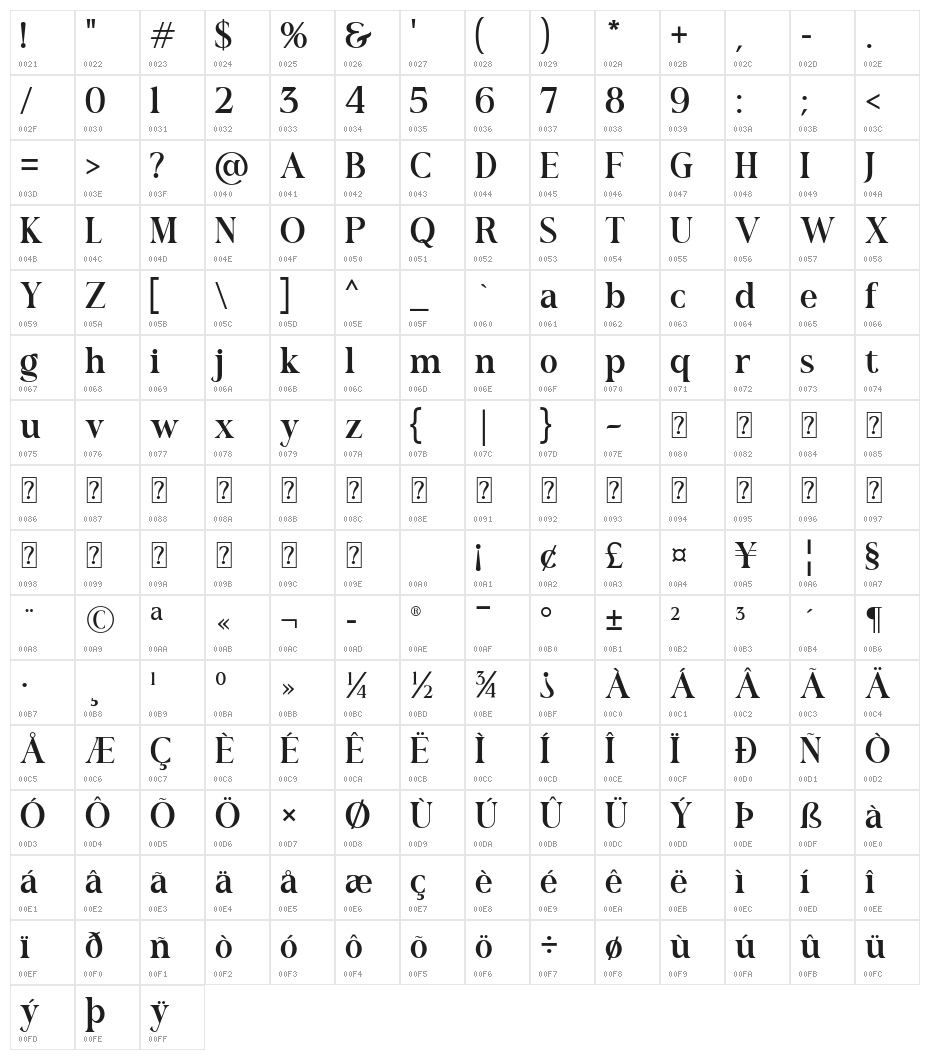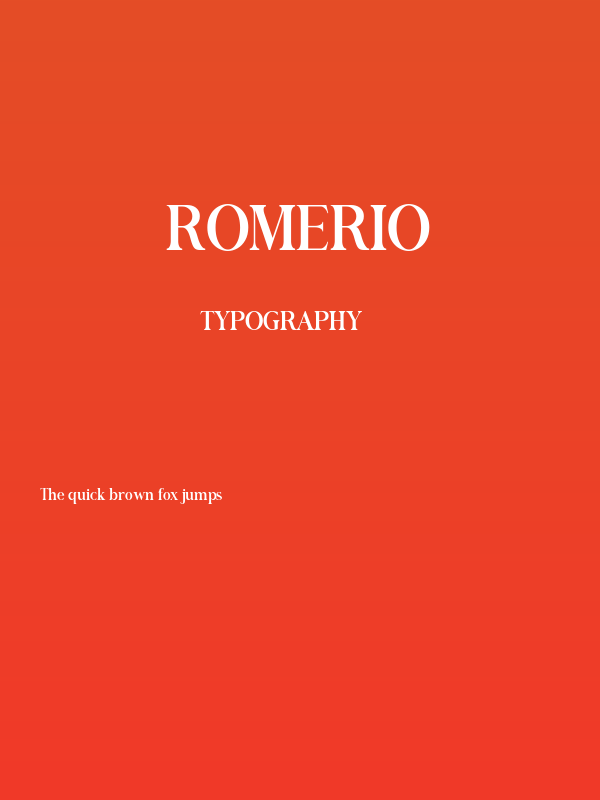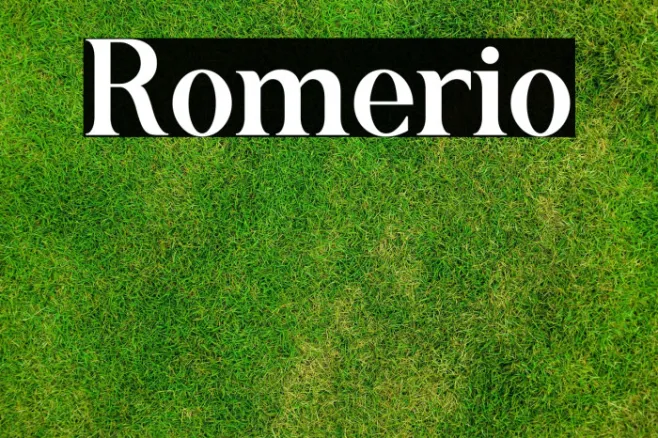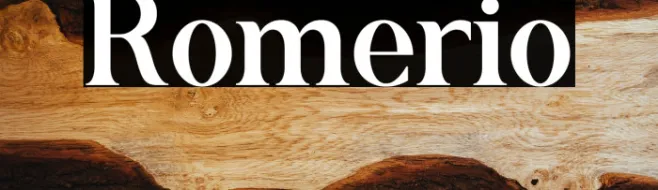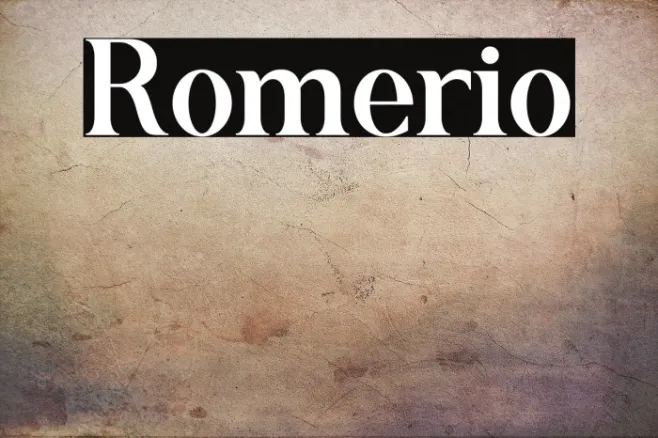
Romerio Font
Romerio Description
This font exhibits a classic serif style with elegant and refined strokes. The uppercase letters are bold and commanding, featuring sharp serifs that add a touch of sophistication. The lowercase letters maintain a consistent style, with smooth curves and balanced proportions. The numerals are clear and distinct, making them easily readable. Special characters are well-integrated, maintaining the overall aesthetic of the font. The design is versatile, suitable for both formal and creative applications, offering a timeless appeal that can enhance various design projects.
| Proposed Projects | Ideal for book covers, editorial design, branding, and formal invitations. |